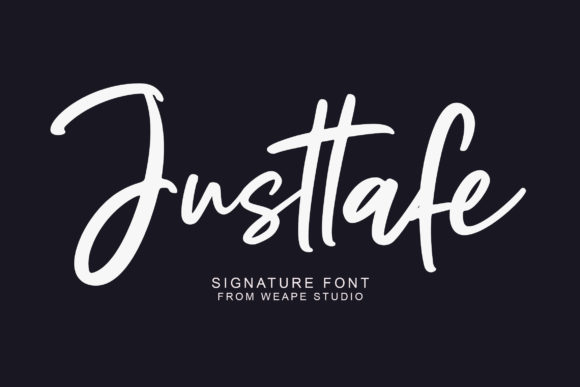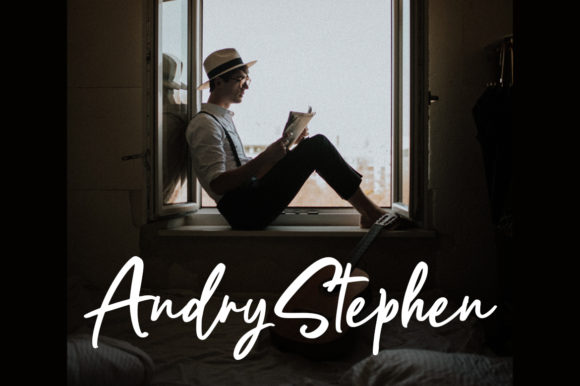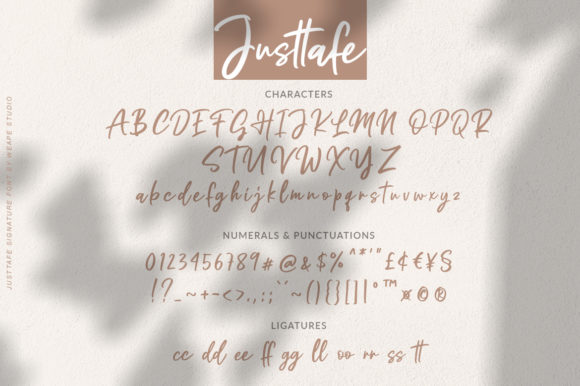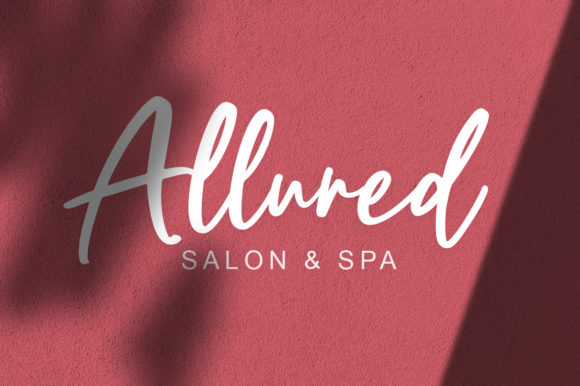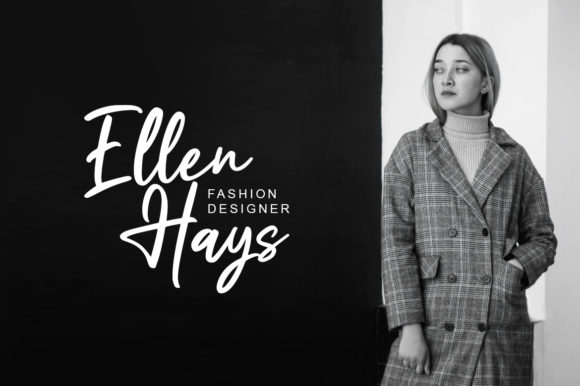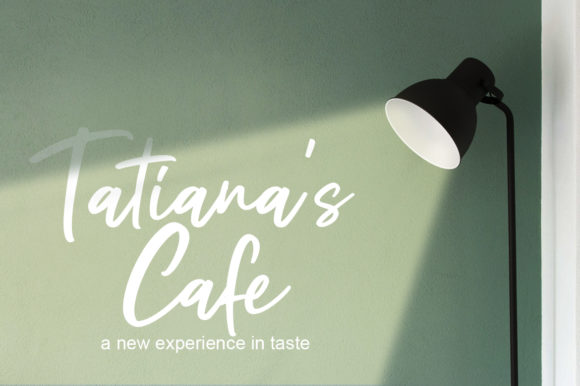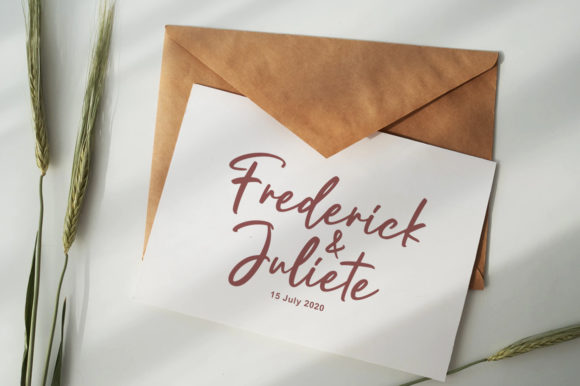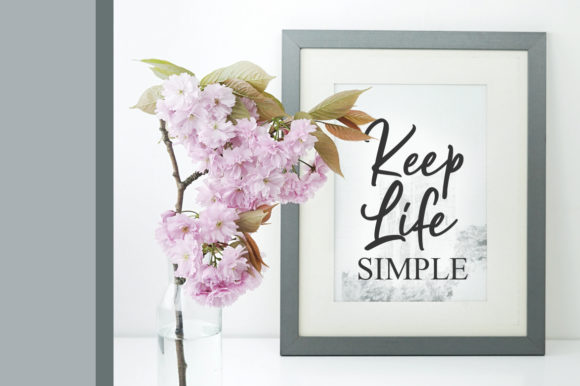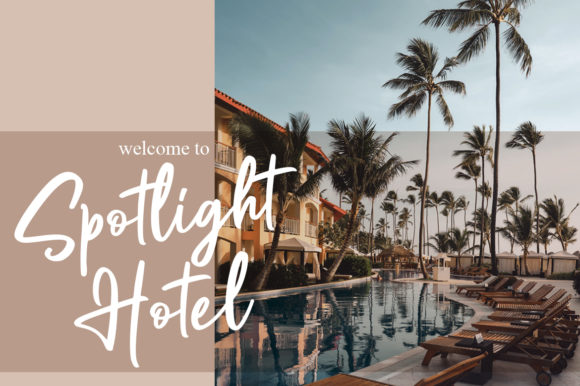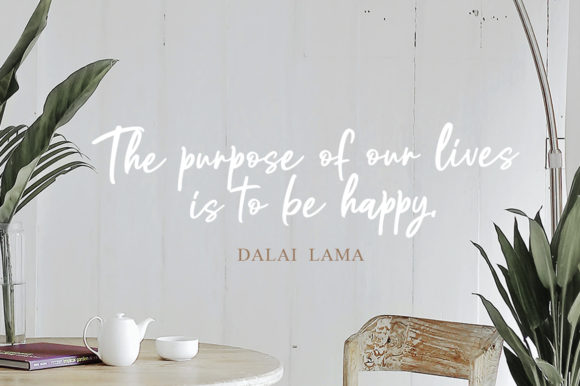
Justtafe Font
About Justtafe Font
Justtafe is inspired by classic typography and brings its own unique style to any design project. This fantastic handwritten font is best suited for headlines of all sizes, as well as for blocks of text that have both maximum and minimum variations. Whether it’s for web, print, moving images or anything else – Justtafe will look spectacular.